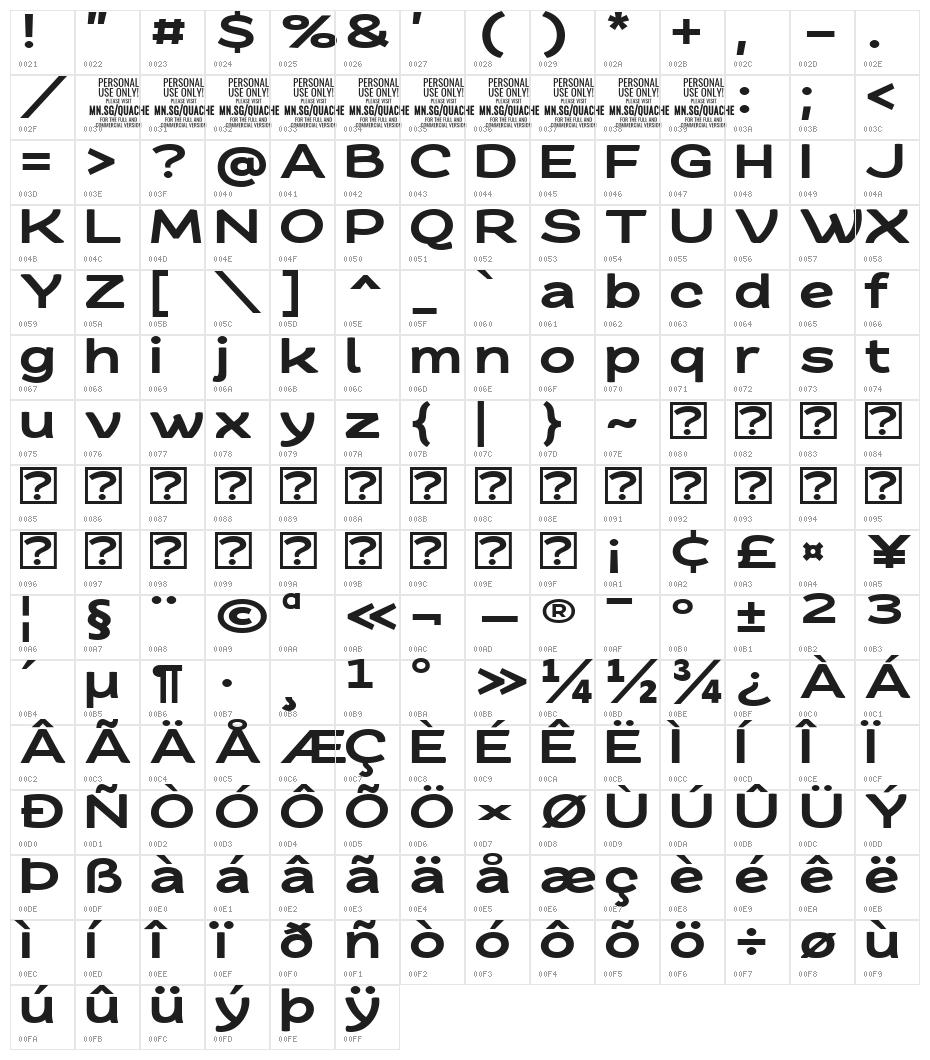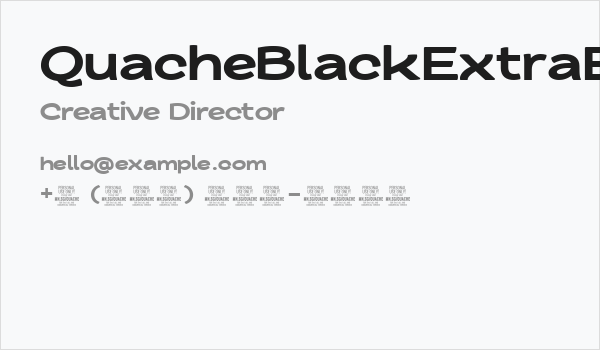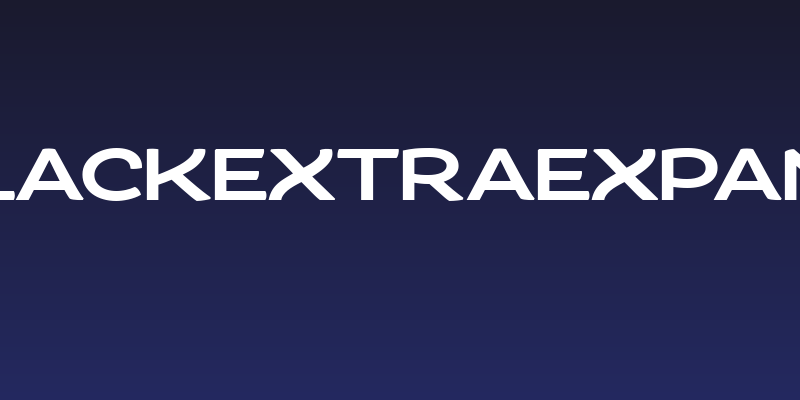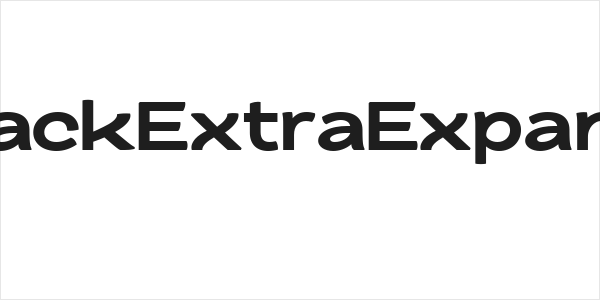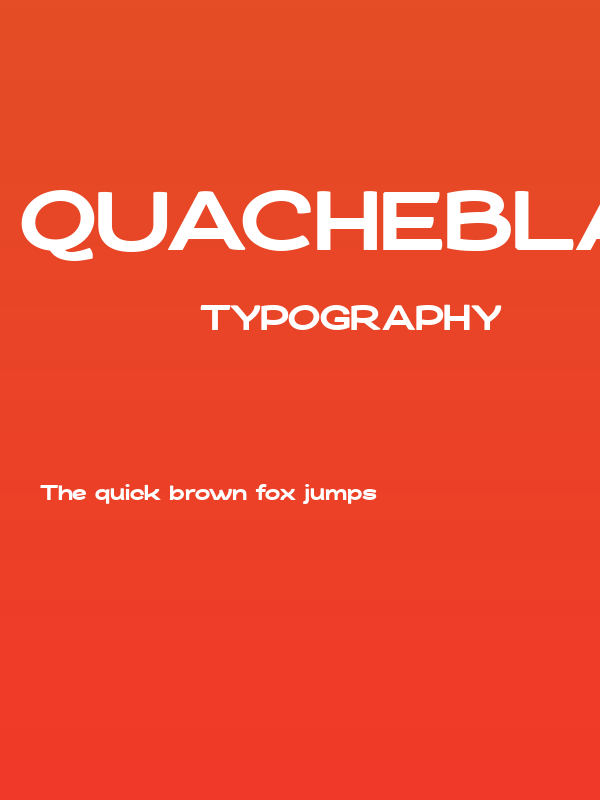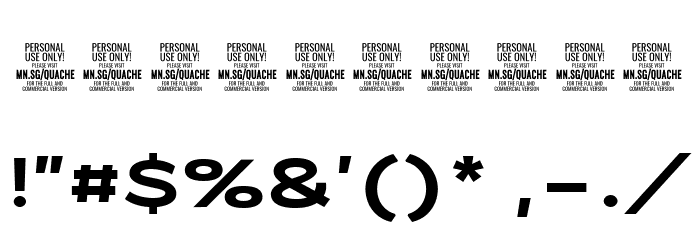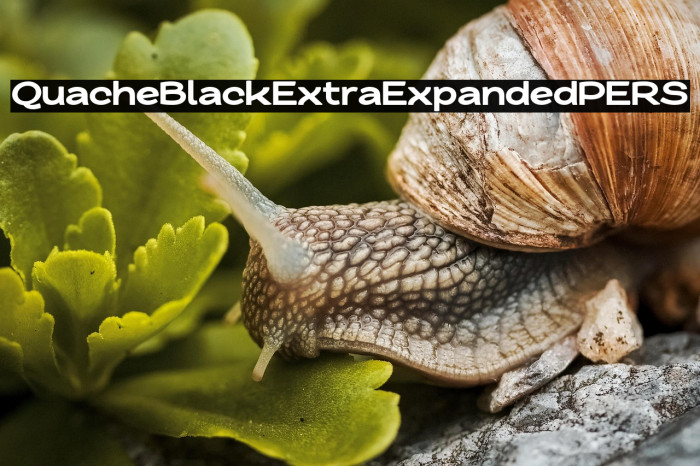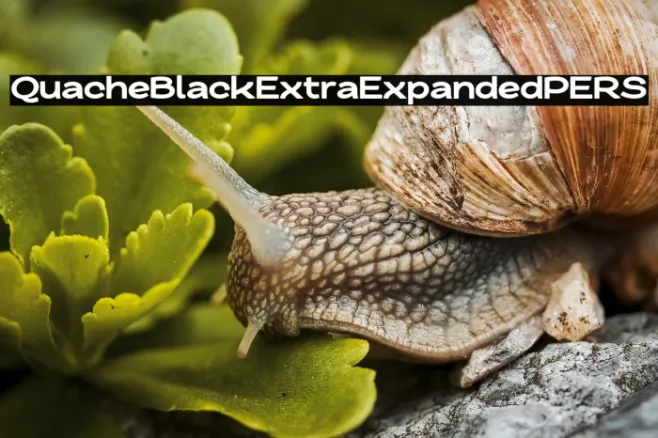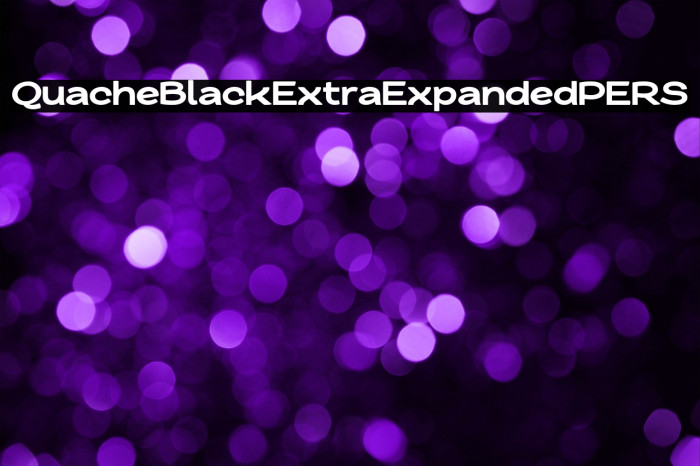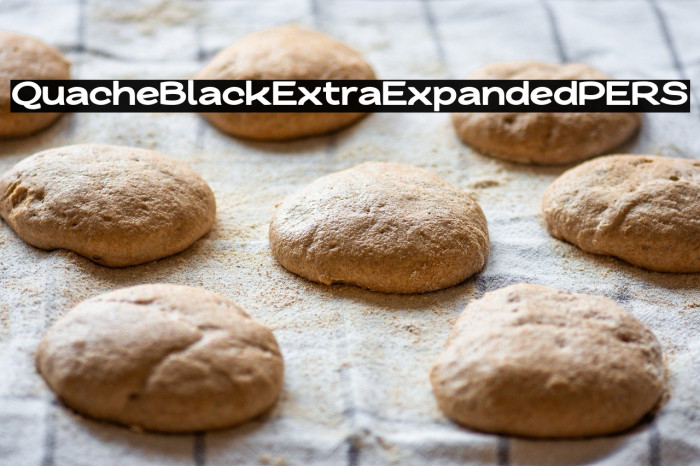
QuacheBlackExtraExpandedPERS Font
QuacheBlackExtraExpandedPERS Description
This font features a bold and expansive design, characterized by its extra-expanded width and strong geometric shapes. The uppercase letters are particularly striking, with a uniform thickness that conveys a sense of stability and modernity. The lowercase letters maintain the same boldness, offering a cohesive look across different text cases. The numerals and special characters are equally robust, ensuring readability and impact. This font's design is ideal for making a statement, with its clean lines and contemporary feel.